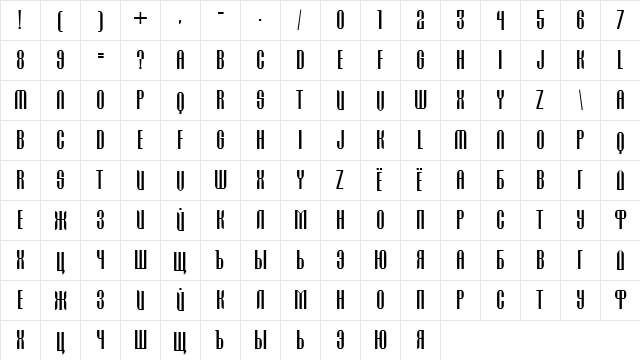
Ben Cat Normal Normal
Design Context for Ben Cat Normal Typeface
Ben Cat Normal offers clean, dependable letterforms without strong stylistic allegiance, making it a practical choice for designers who need flexibility.
Pro Tip: Use Ben Cat Normal in both headline and body roles to test its range before committing to a single application.